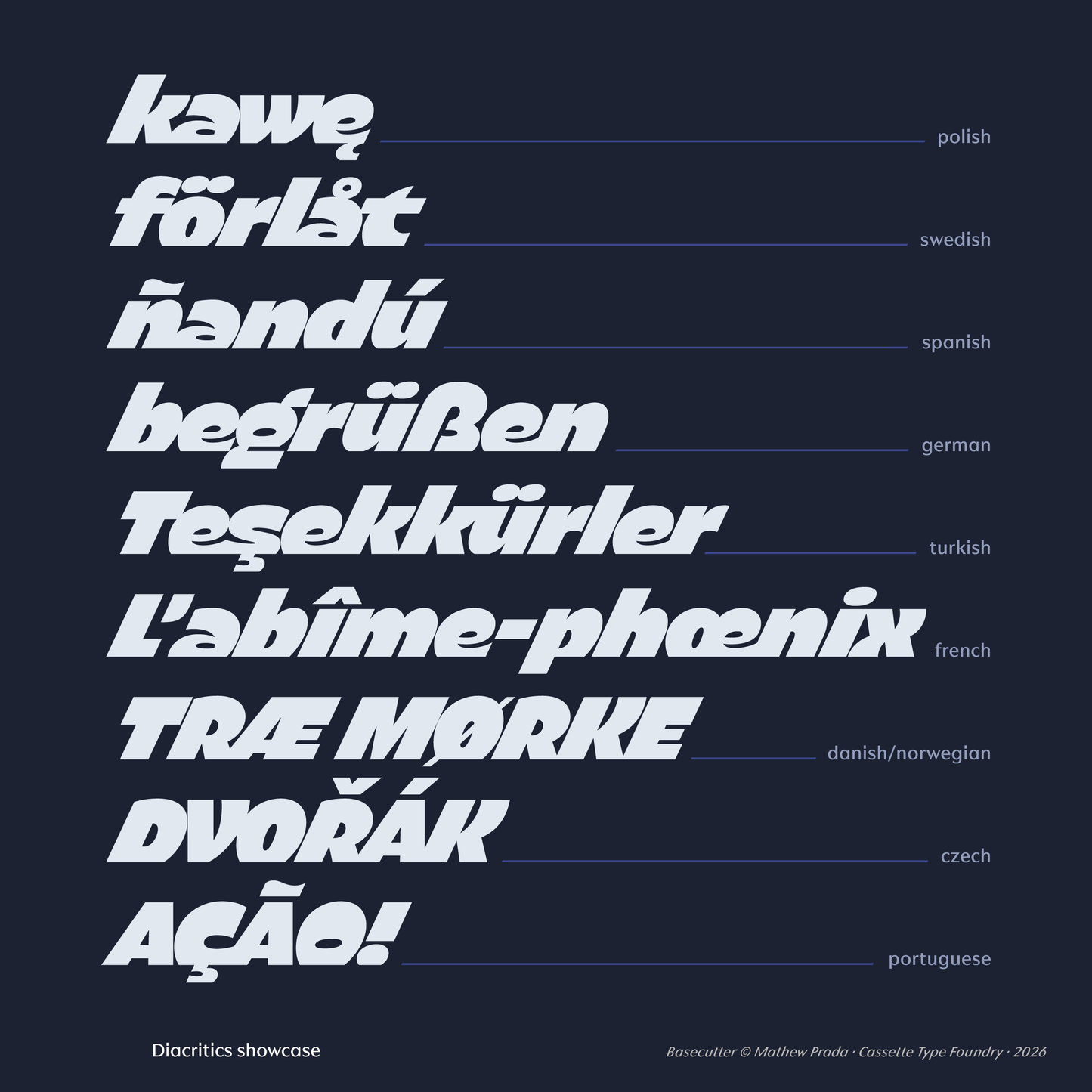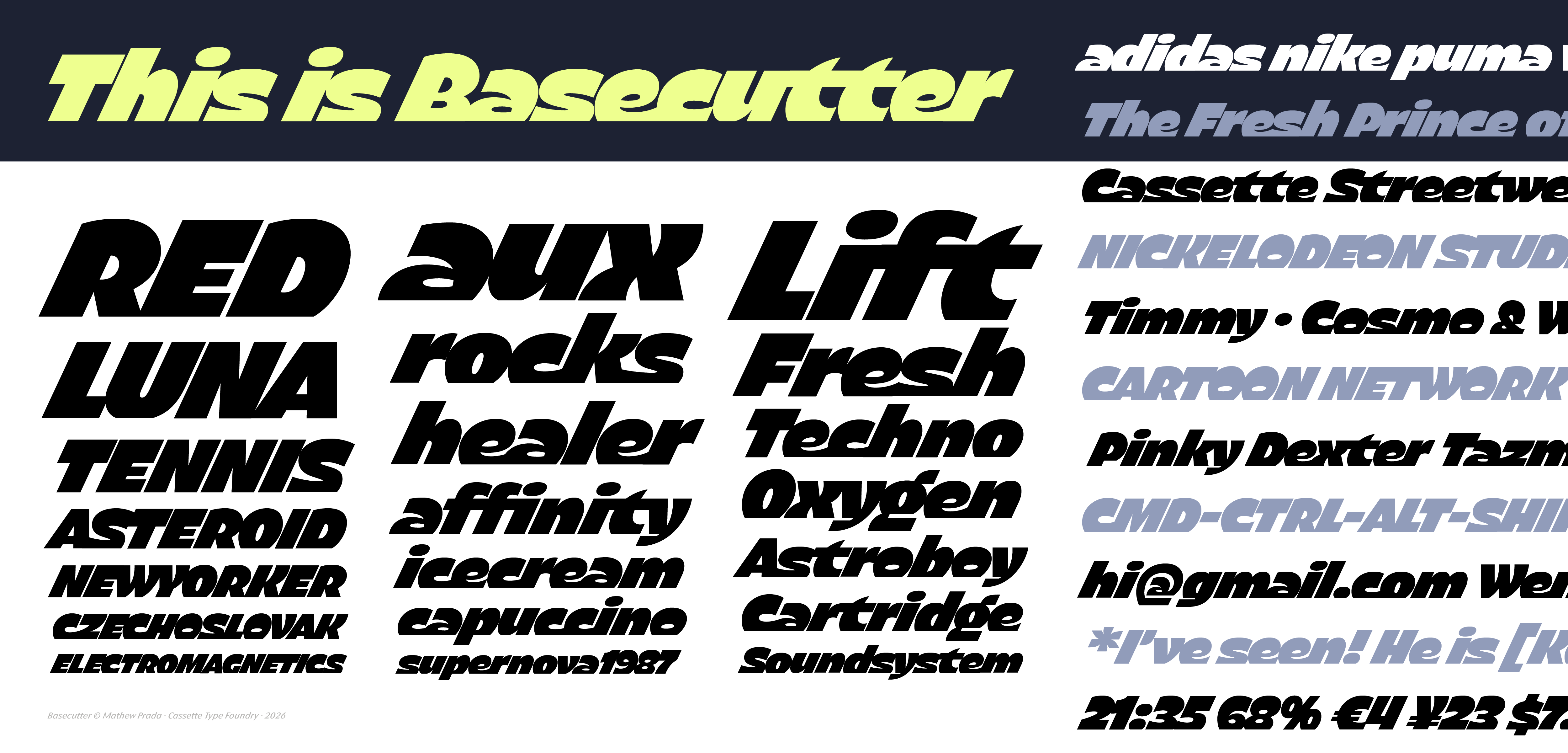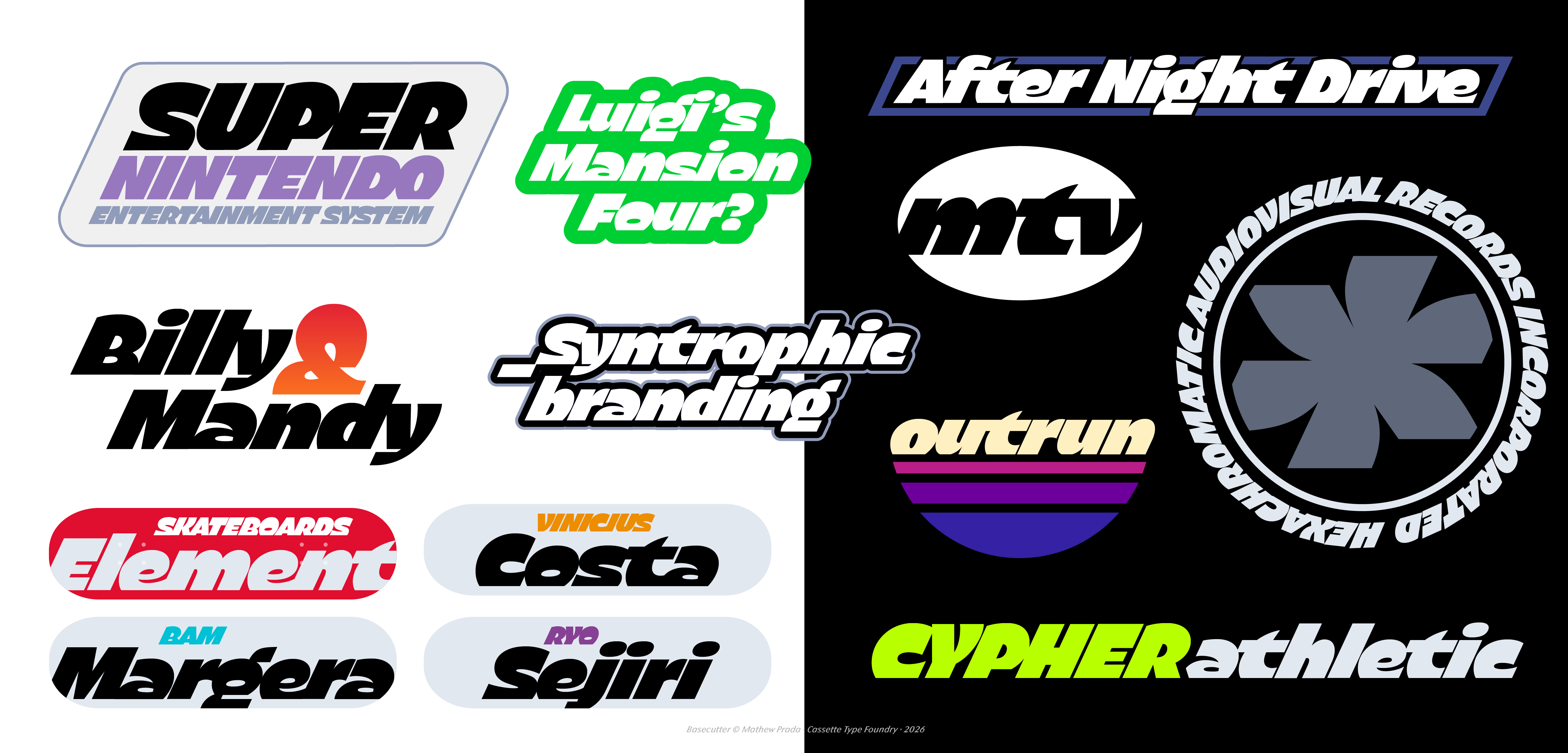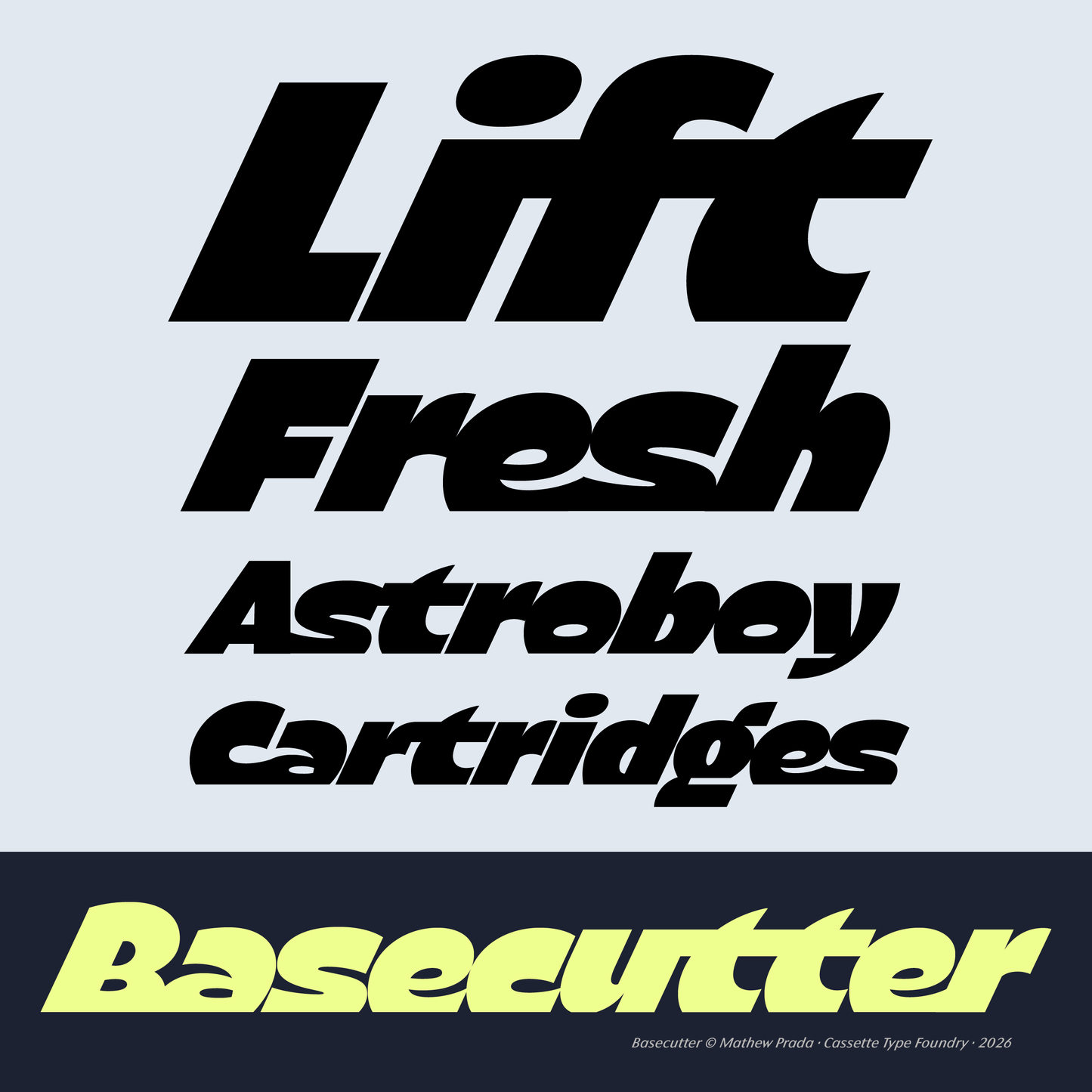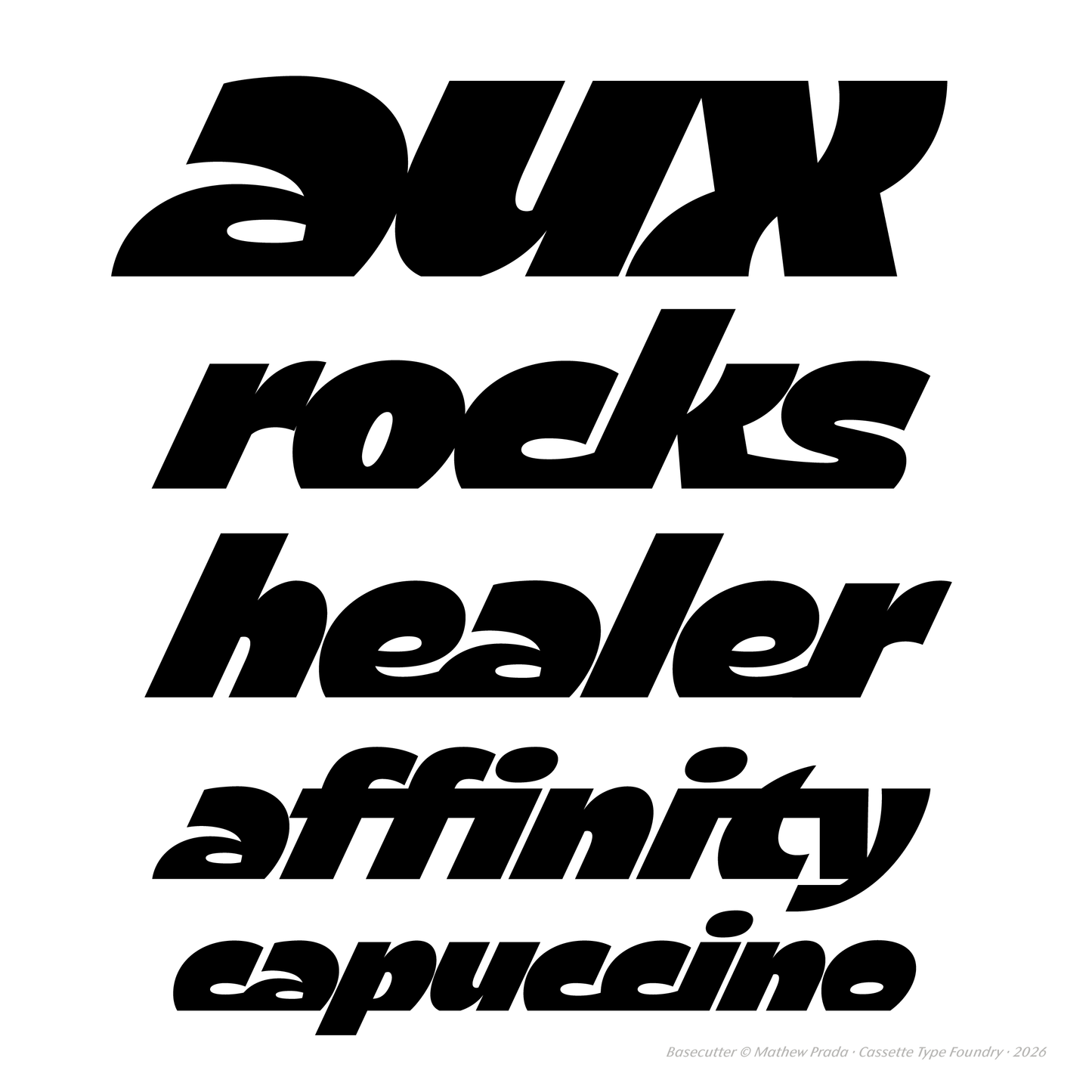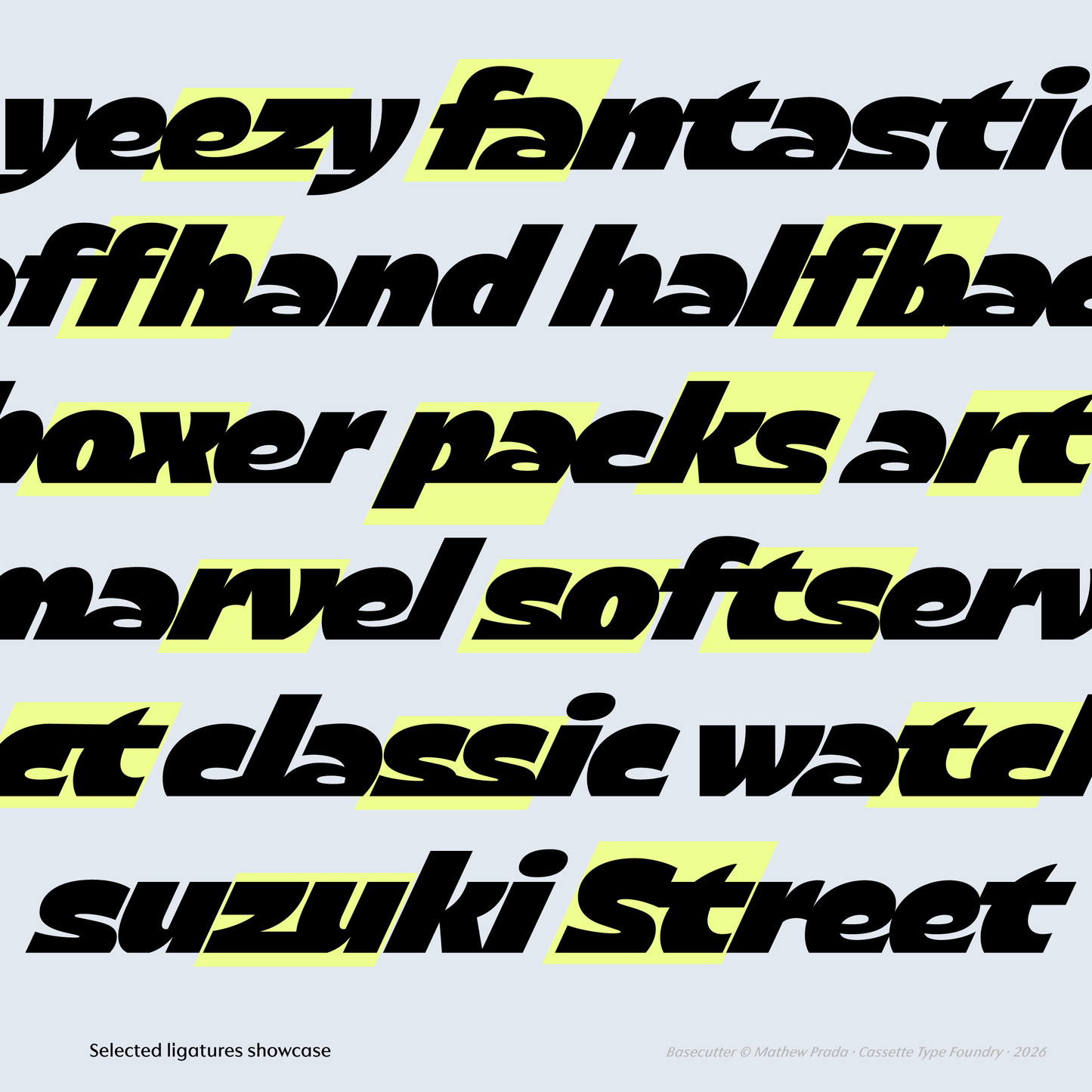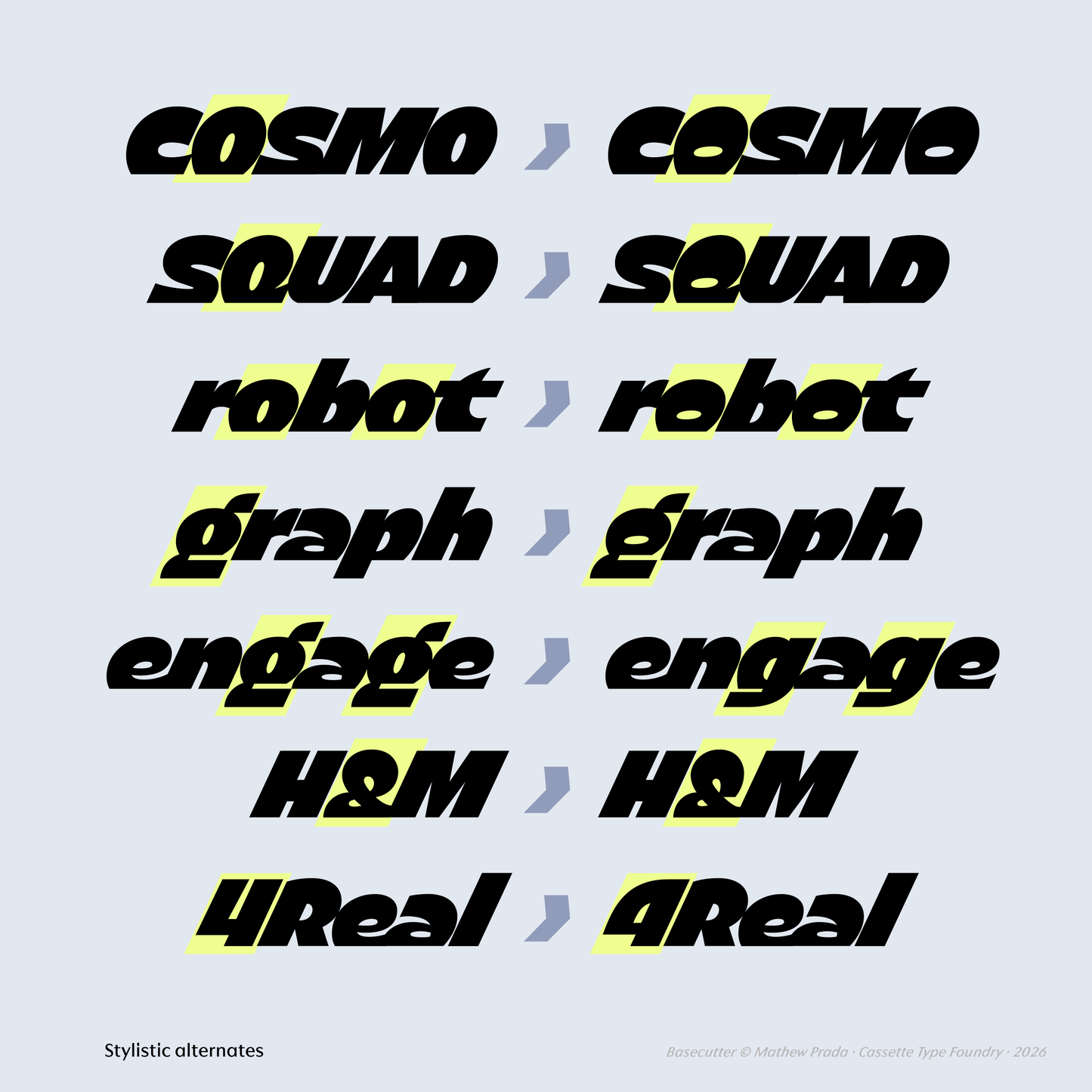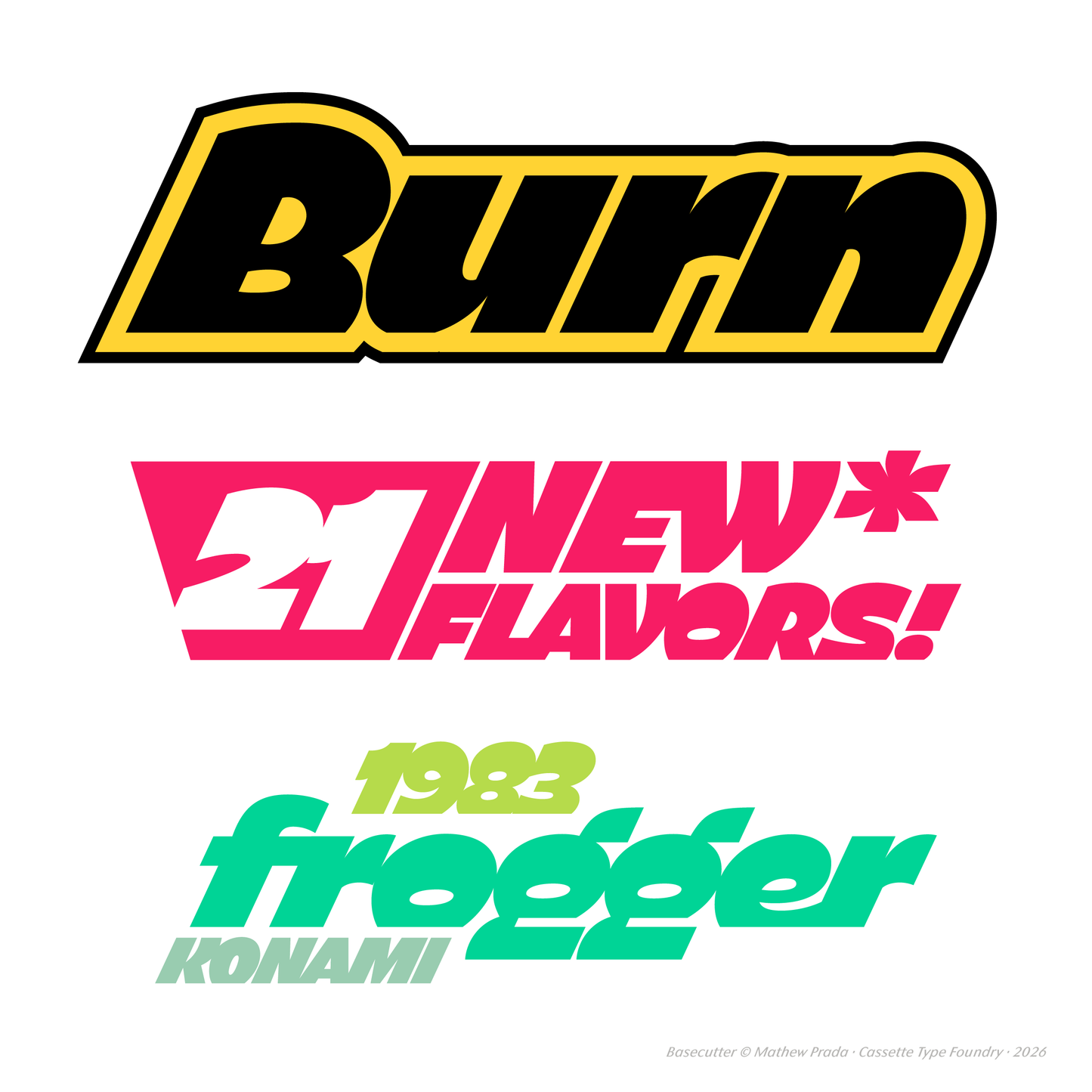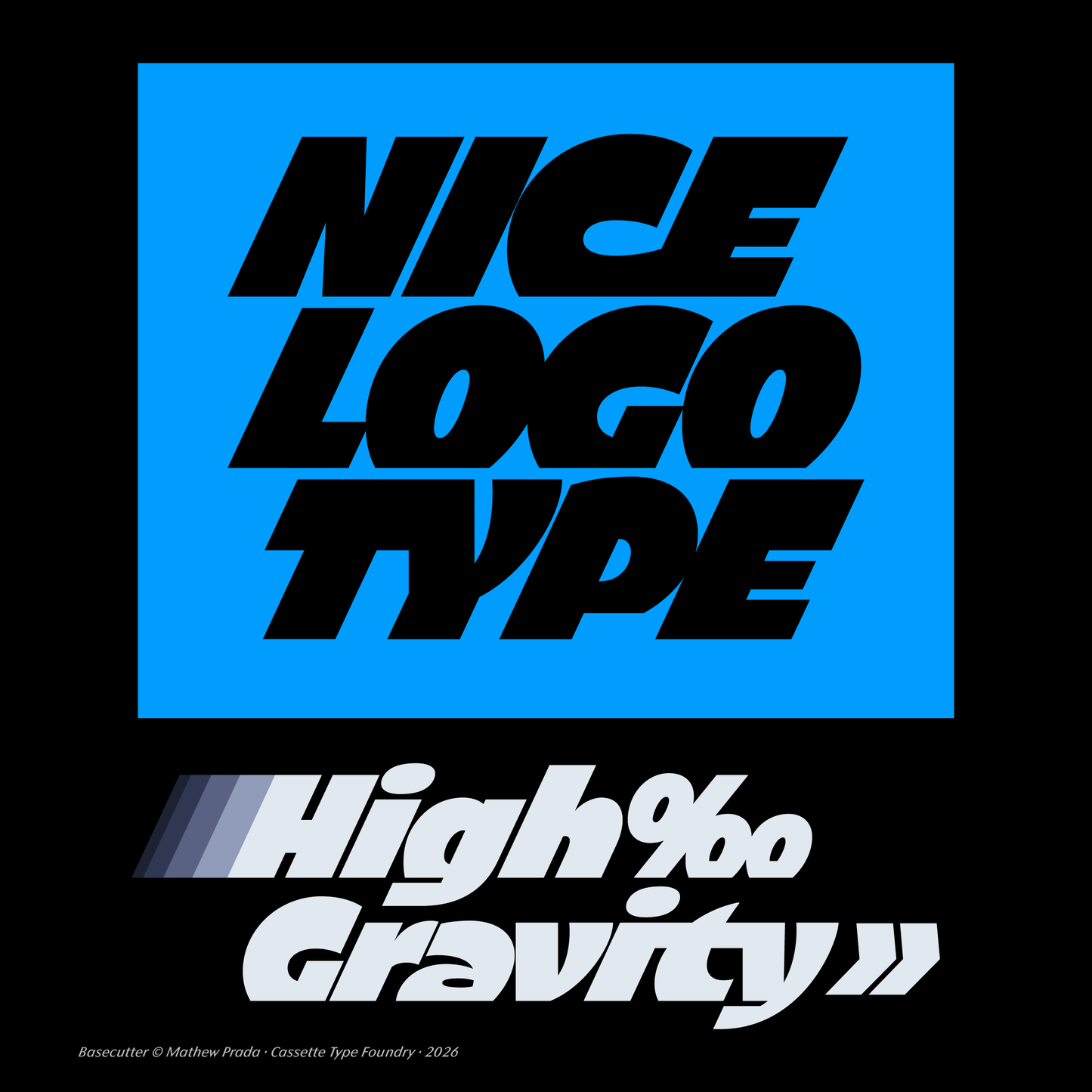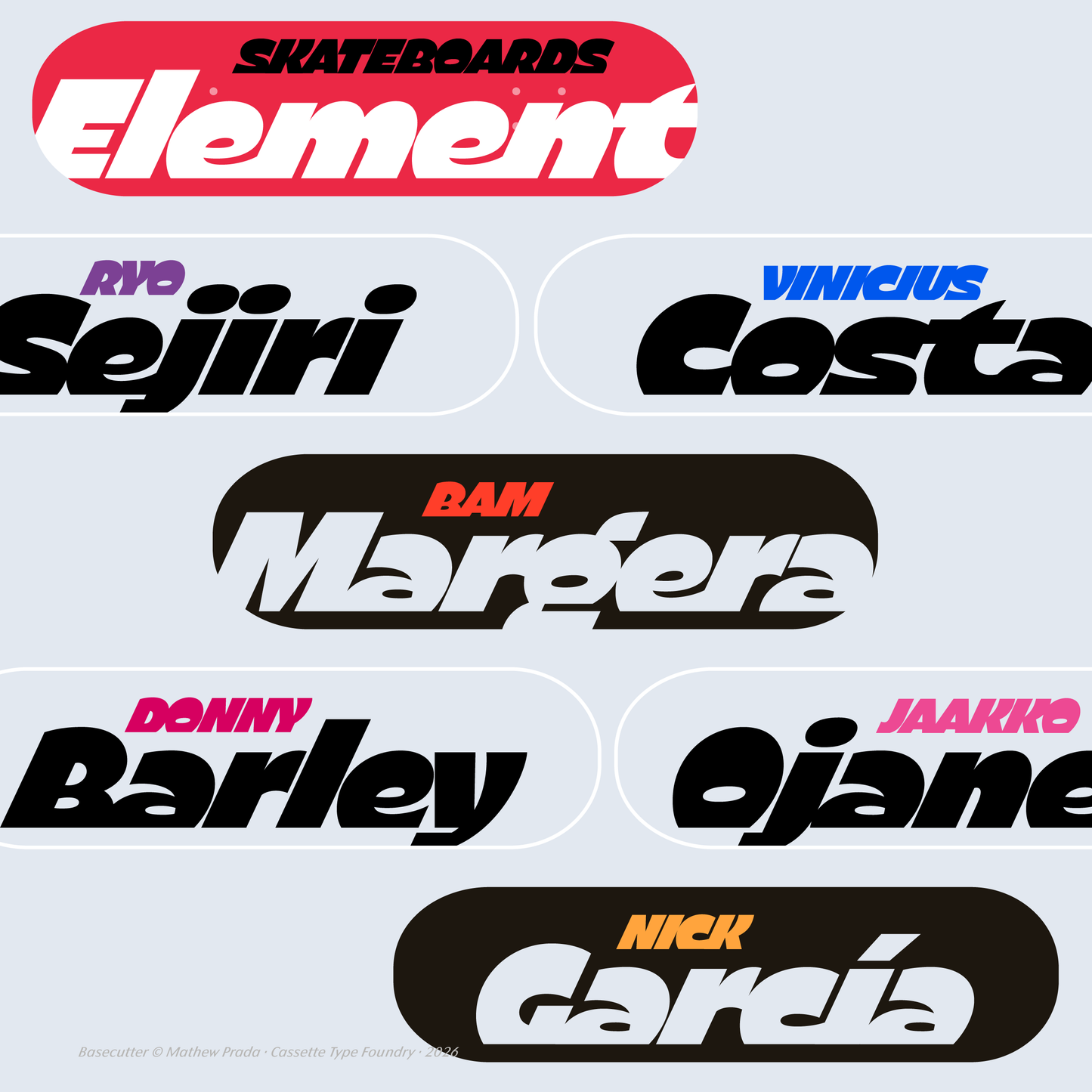
Basecutter
Matthew Prada
Basecutter
Sharp on the bottom and generously curved above, Basecutter is a typeface that offers many strong connections. Featuring a tight rhythm and dozens of discretionary ligatures, the text flows naturally across the baseline as you type, and characters naturally join to form bespoke-looking compositions.
The system also includes a key alternate 'o' (among others) that add a friendlier touch to the system. The result is a dynamic, high-intent display typeface.
— SIX WEIGHTS & VARIABLE FONT
— 30 LIGATURES
— STYLISTIC ALTERNATES ‘O’
’o’ ‘Q’ ‘g.ss01’ ‘g.ss02’ ‘4’ ‘&’